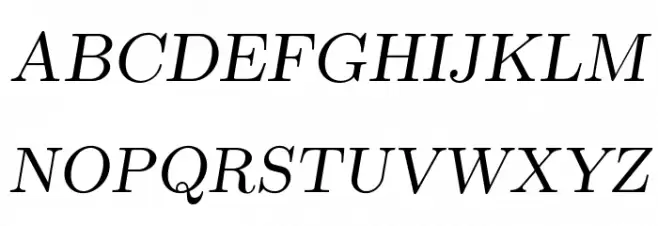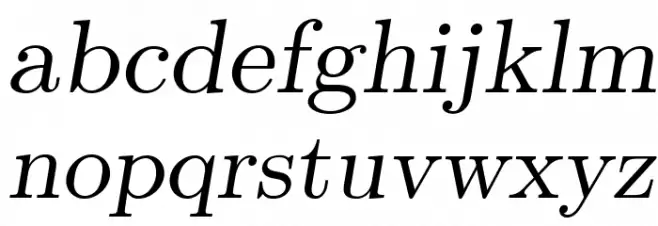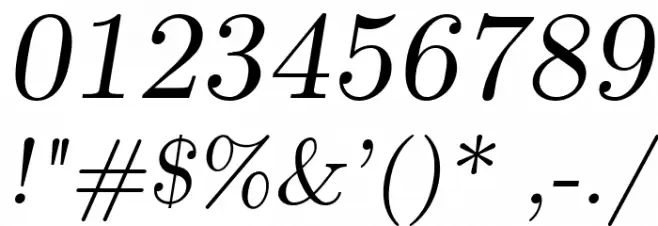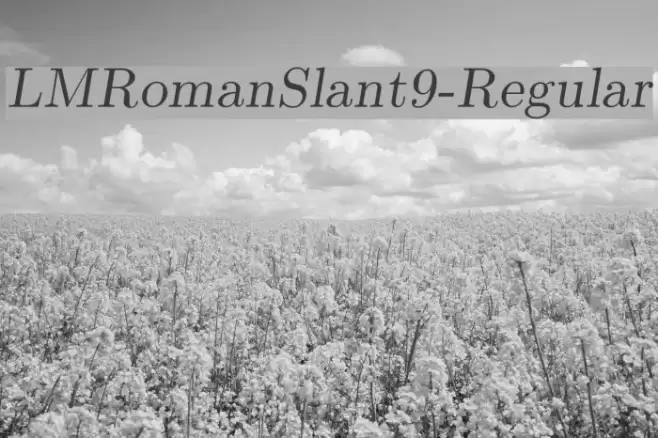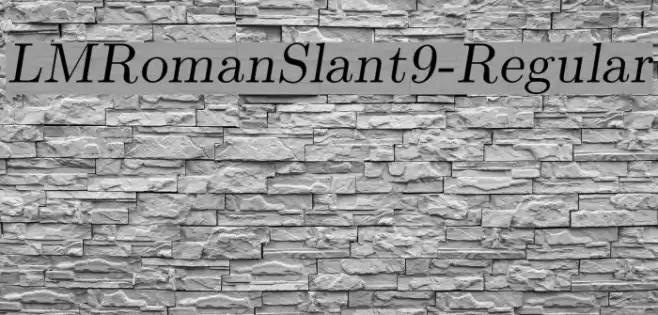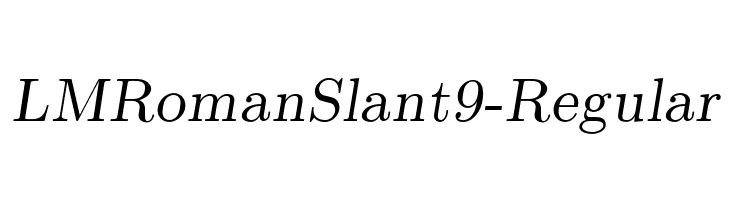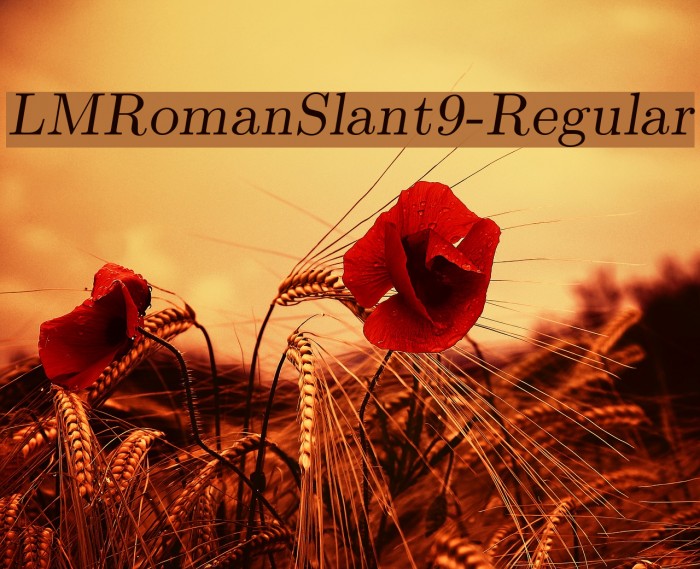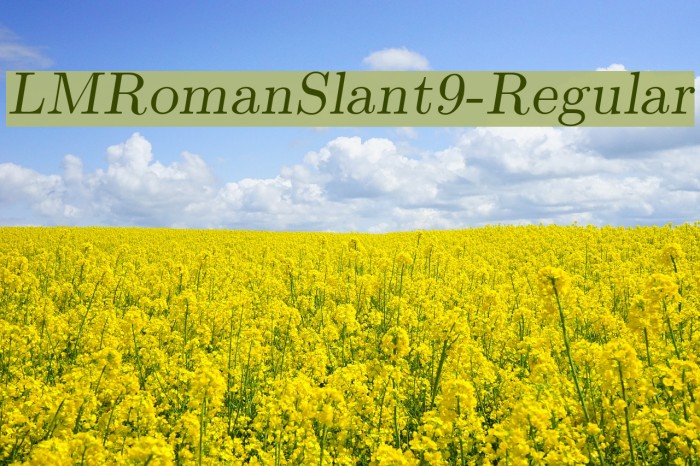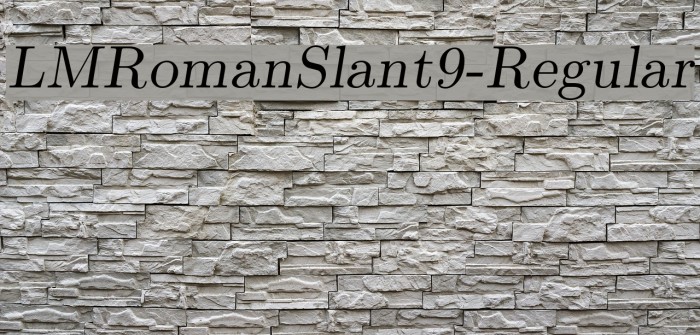
LMRomanSlant9-Regular
This font exhibits a classic serif style with a distinct slant, giving it an elegant and sophisticated appearance. The characters are well-defined with moderate contrast in stroke thickness, enhancing readability while maintaining a refined aesthetic. The uppercase letters are slightly taller than the lowercase, providing a balanced and harmonious look. The numerals are proportionate and align well with the text, making them suitable for both formal and informal settings. Special characters are crafted with precision, adding to the font's versatility.
A classic serif font with a slant, offering elegance and readability.
- Proposed Projects: Ideal for editorial design, formal invitations, book covers, and branding materials that require a touch of sophistication.
- Category: Serif
- Overall Style: Classic